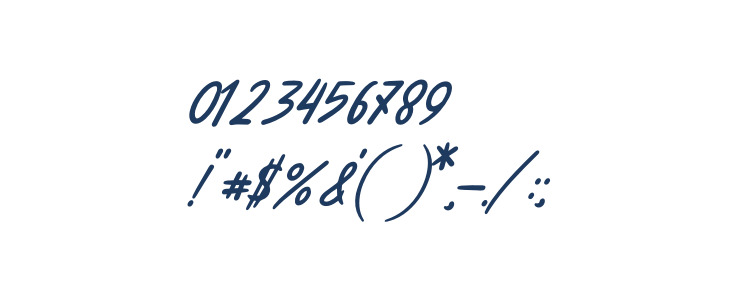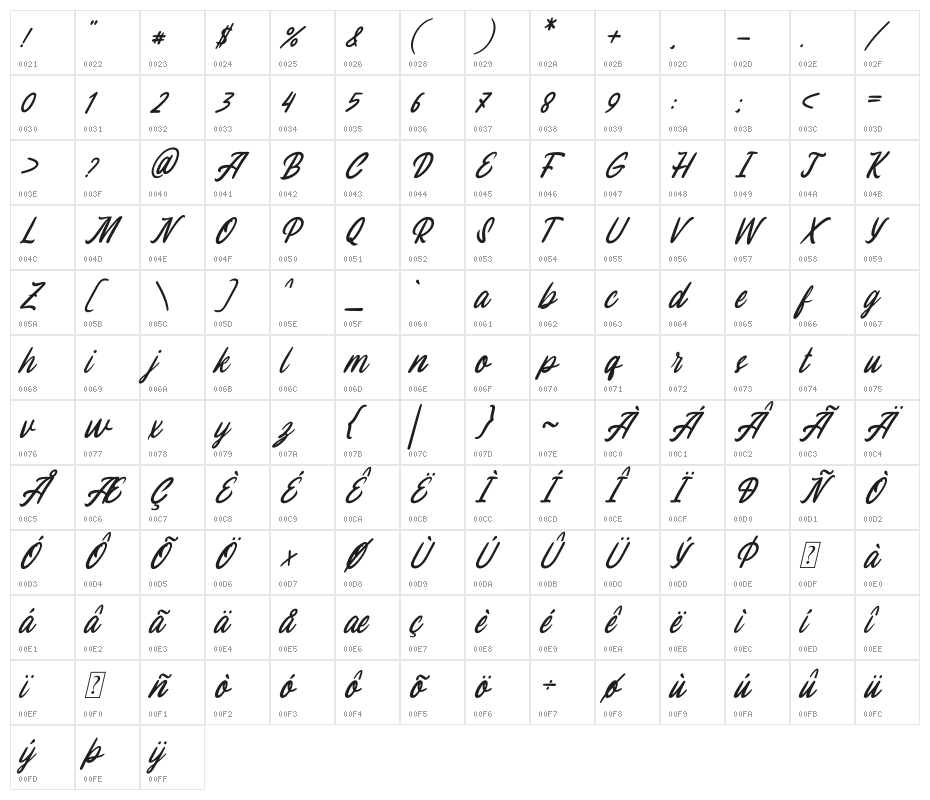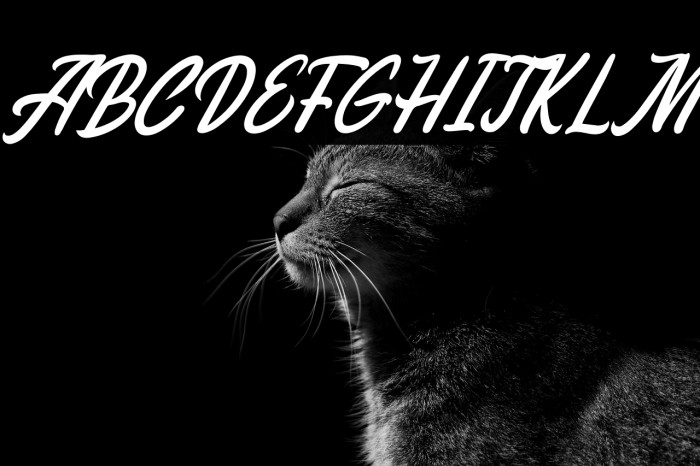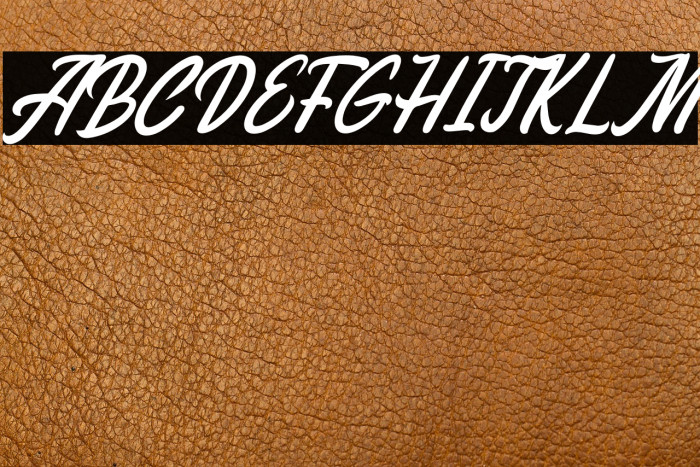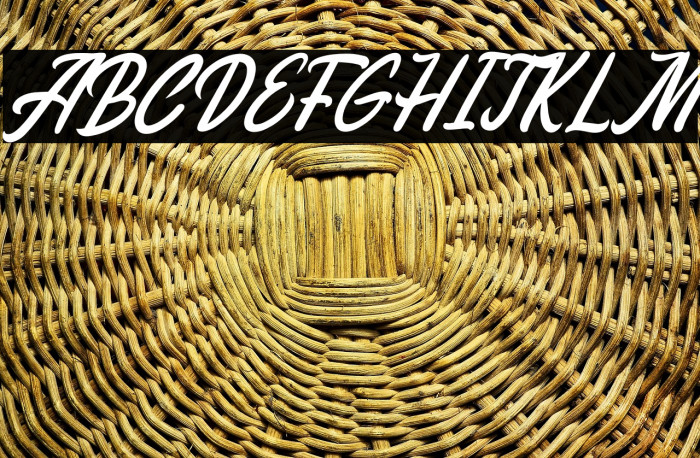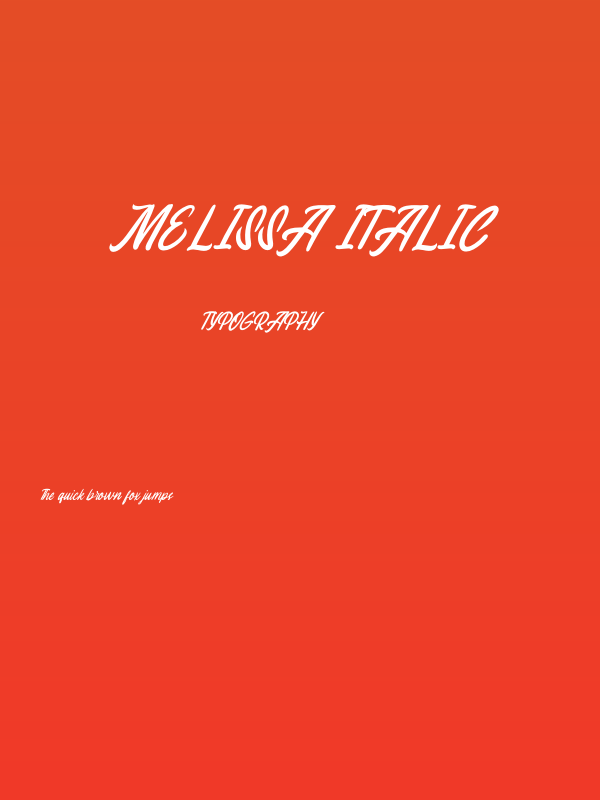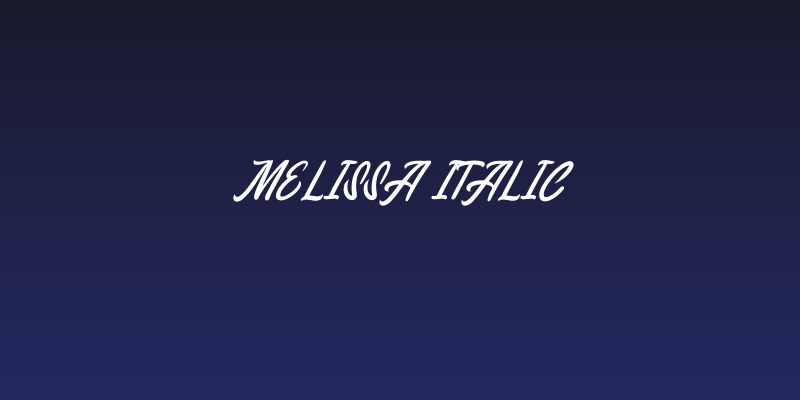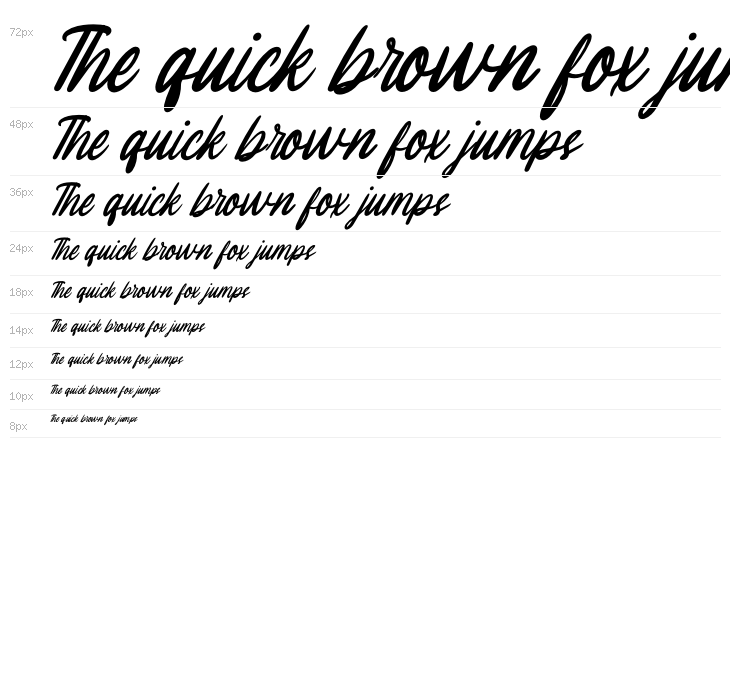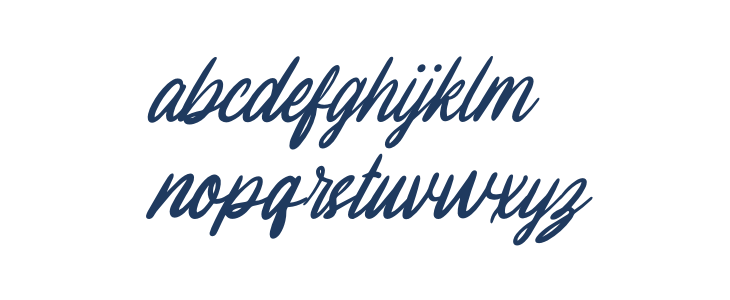
Melissa Italic Font
Melissa Italic Description
This font exudes a dynamic and energetic style with its bold, flowing script. The characters are connected in a cursive manner, giving it a handwritten feel. The strokes are thick and consistent, providing a strong visual impact. The uppercase letters are slightly larger and more pronounced, while the lowercase letters maintain a smooth and elegant flow. The numbers and special characters are designed to match the overall aesthetic, ensuring a cohesive look across all elements. This font is perfect for projects that require a personal touch or a sense of movement and flair.